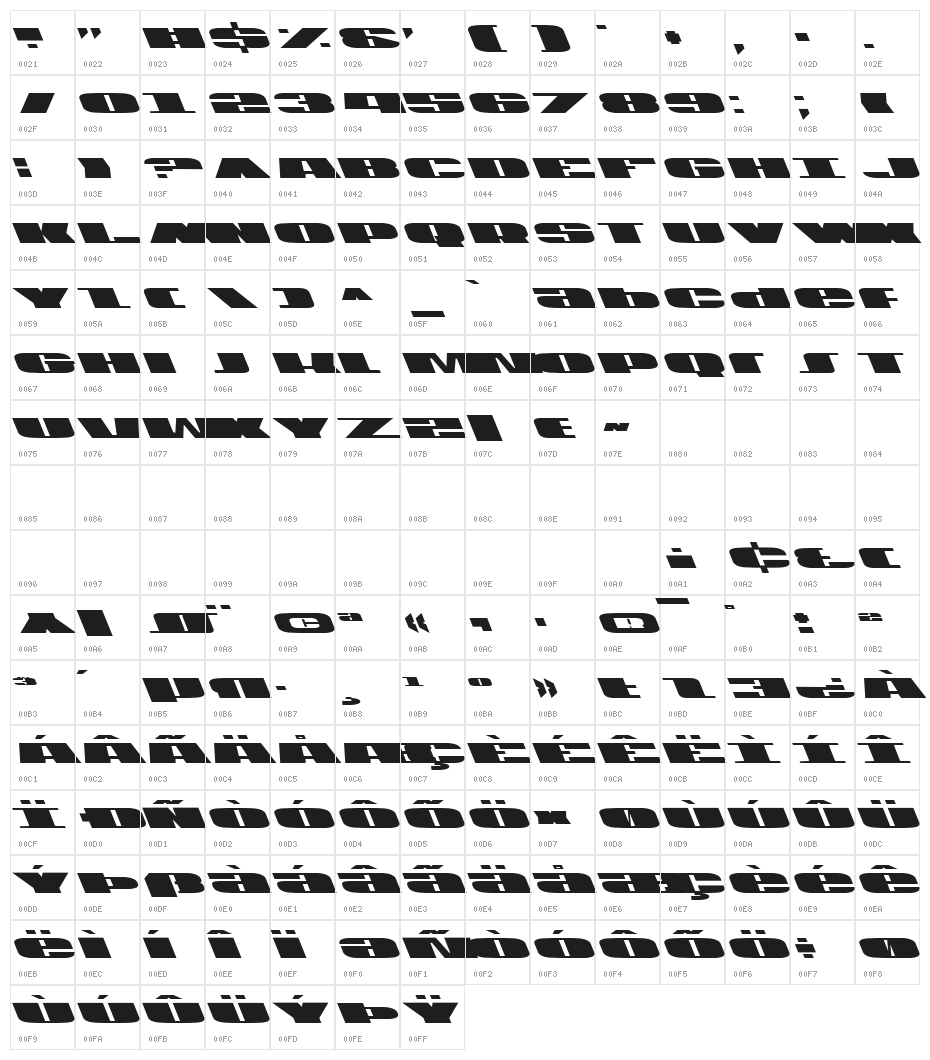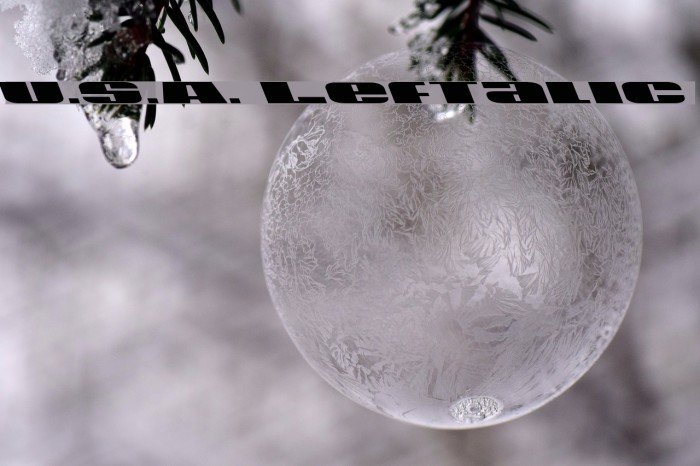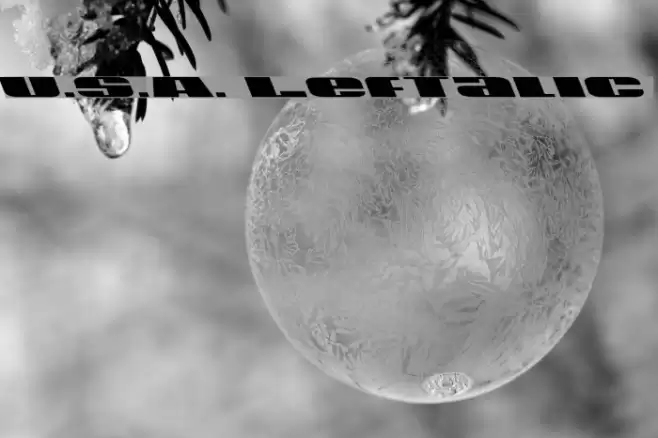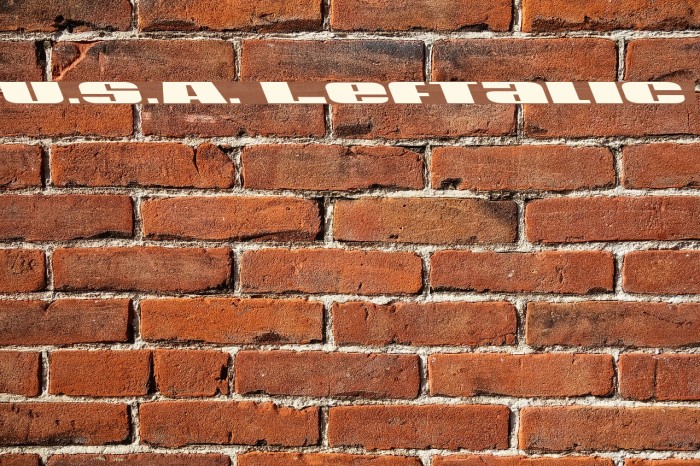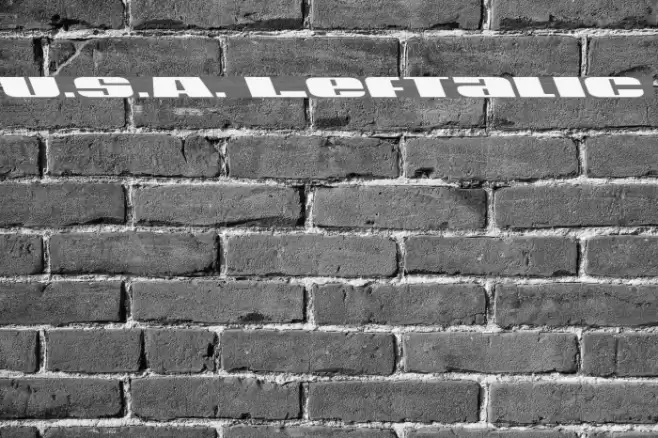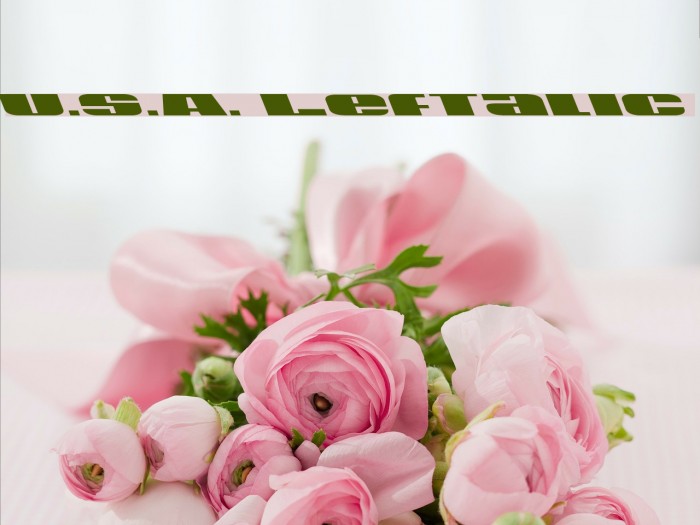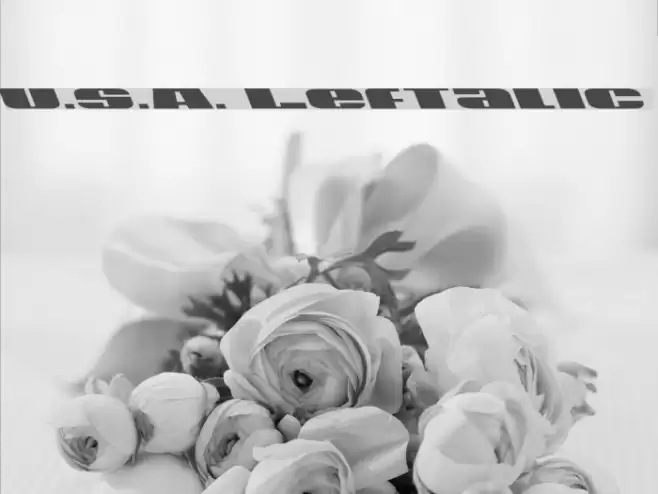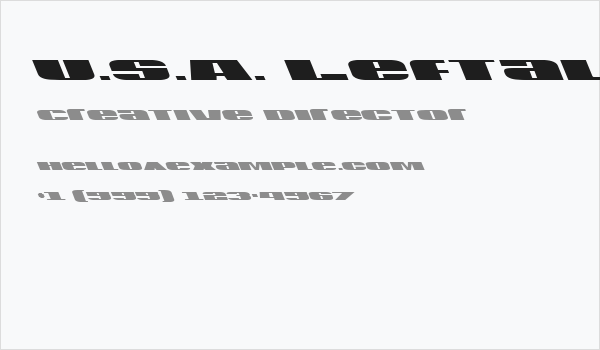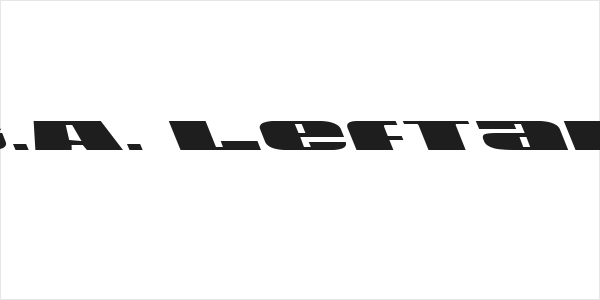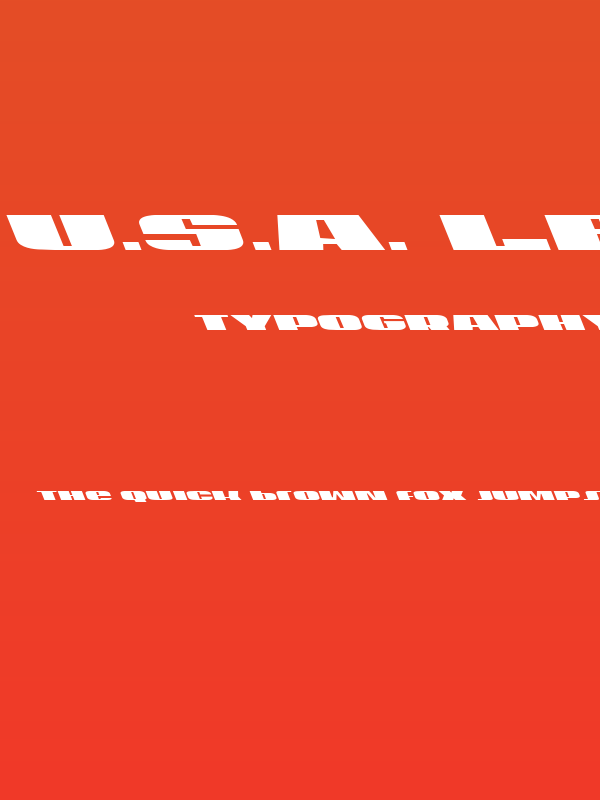
U.S.A. Leftalic Font
U.S.A. Leftalic Description
This font features a bold and dynamic style with a distinct italic slant, giving it a sense of motion and energy. The characters are wide and robust, with thick strokes that create a strong visual impact. The uppercase and lowercase letters maintain a consistent style, with the lowercase letters slightly more condensed. The numerals are equally bold, ensuring readability and uniformity across different uses. Special characters are designed to match the overall aesthetic, providing a cohesive look. This font is ideal for projects that require a bold statement and a modern, edgy feel.
| Proposed Projects | Ideal for sports branding, dynamic posters, and modern advertising campaigns. |